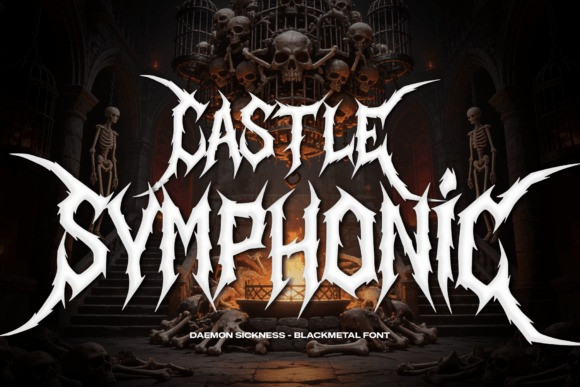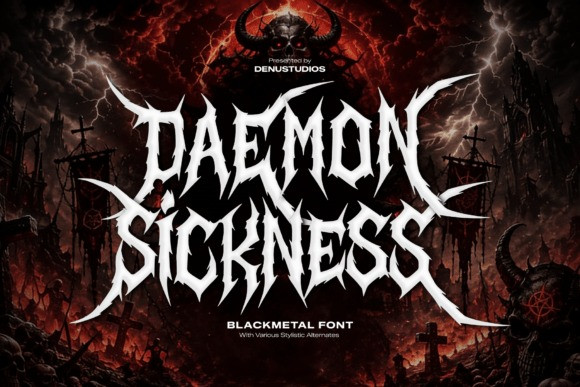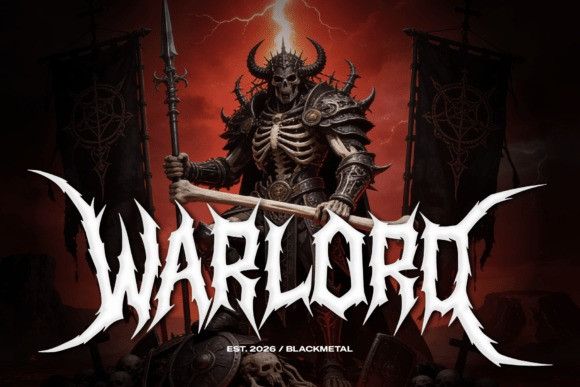
Daemon Sickness Font
Daemon Sickness Font – This premium uppercase black metal display font is engineered to bring visceral horror and raw power to your headings. Characterized by its hyper-aggressive, jagged spikes, unpredictable thorn-like branches, and sharp chiseled structures, it perfectly captures the extreme sonic aesthetic of deathcore, slam, and black metal album typography.
The bone-white, menacing characters pop beautifully against hellish background illustrations, dark fantasy art, and lightning-streaked night skies. It stands out as an exceptional choice for metal band logos, extreme streetwear merchandise graphics, horror video game title screens, dark fantasy book covers, and edgy promotional poster layouts.